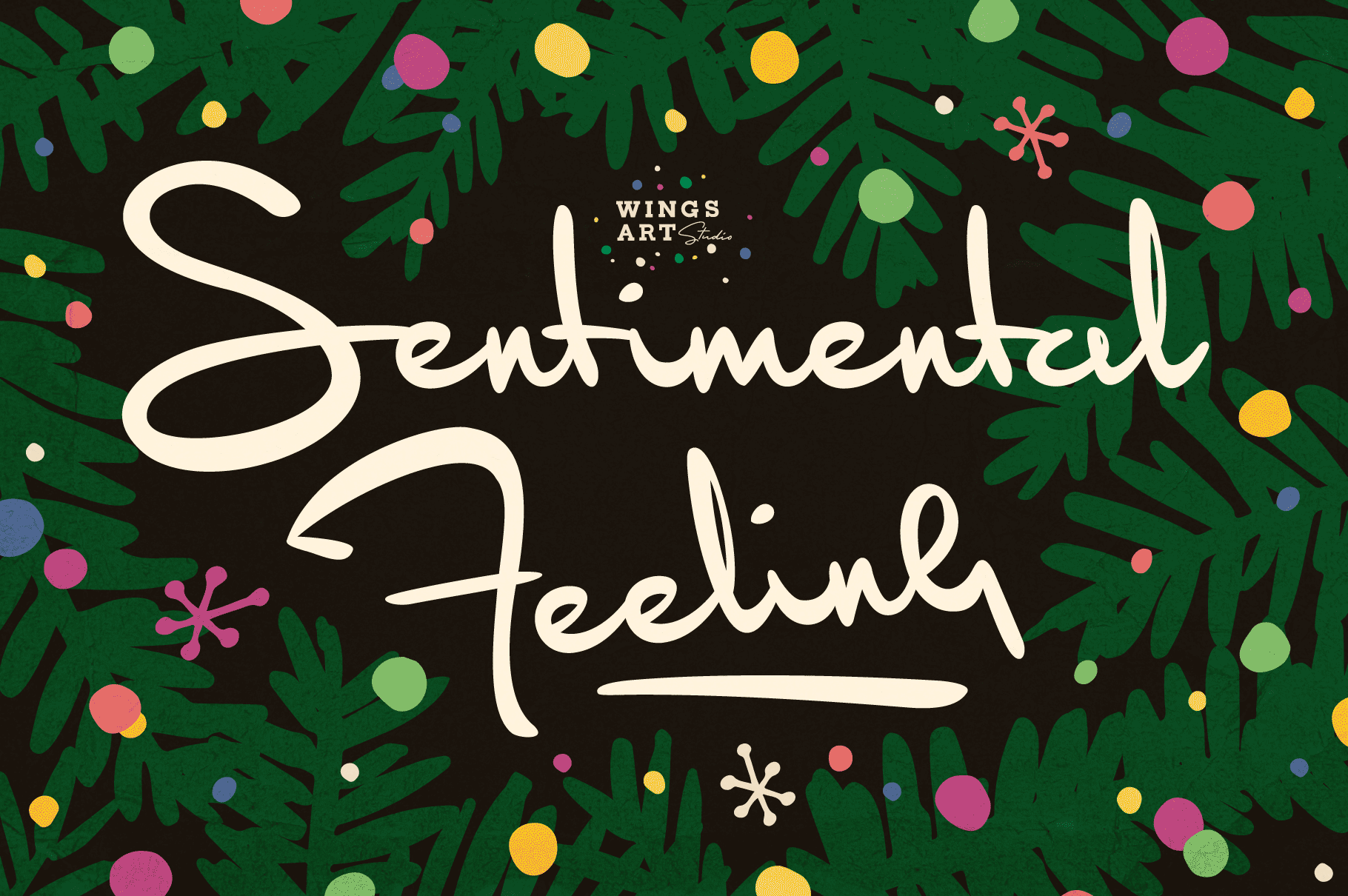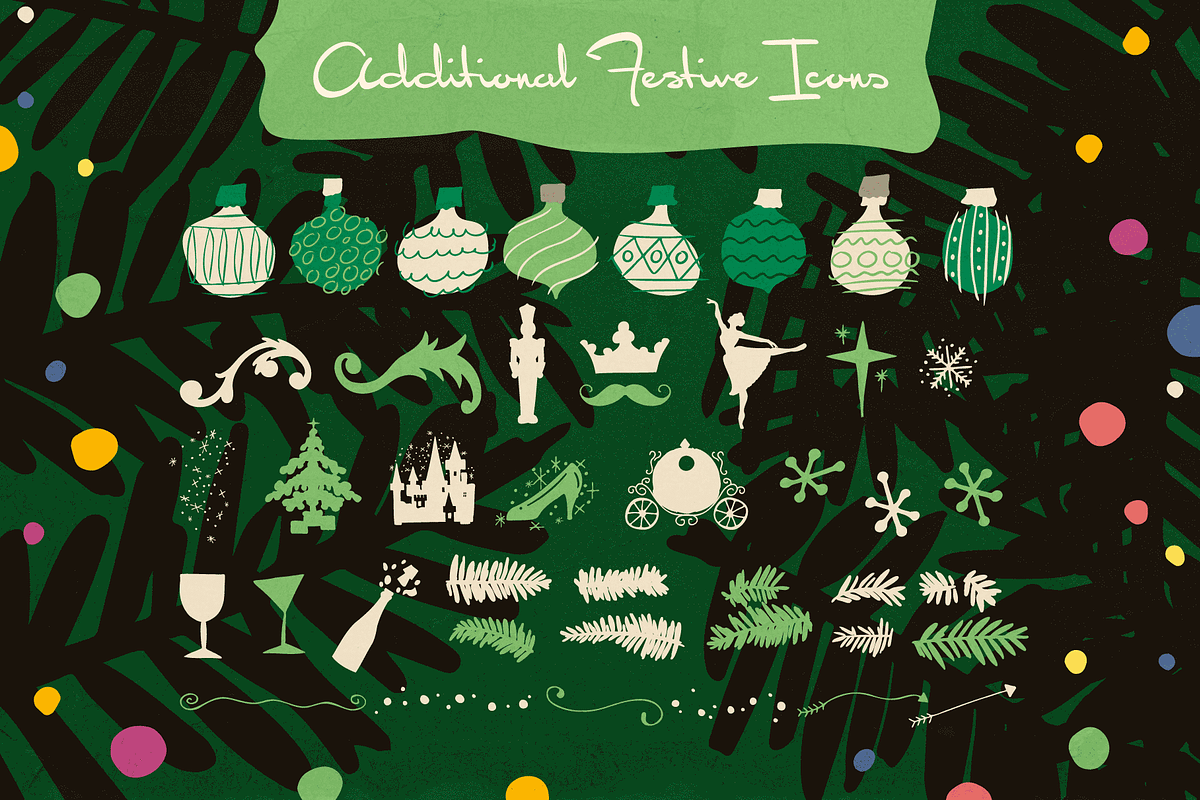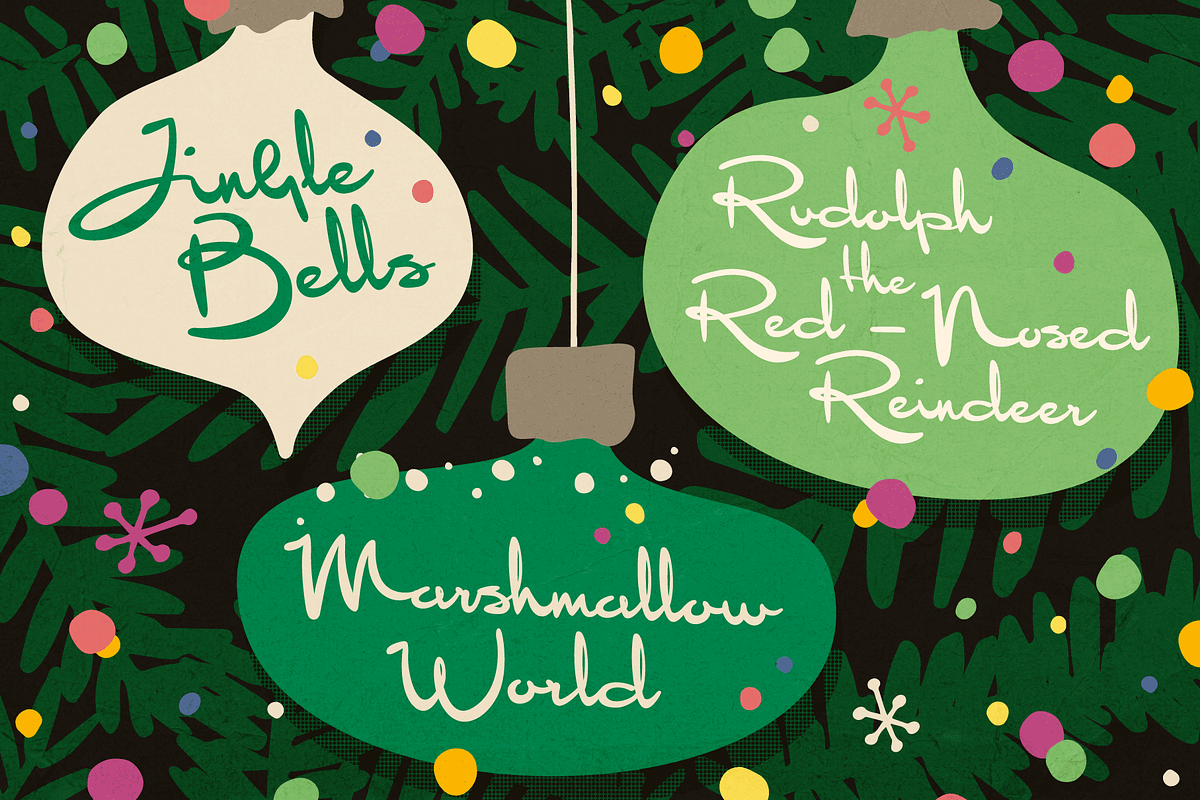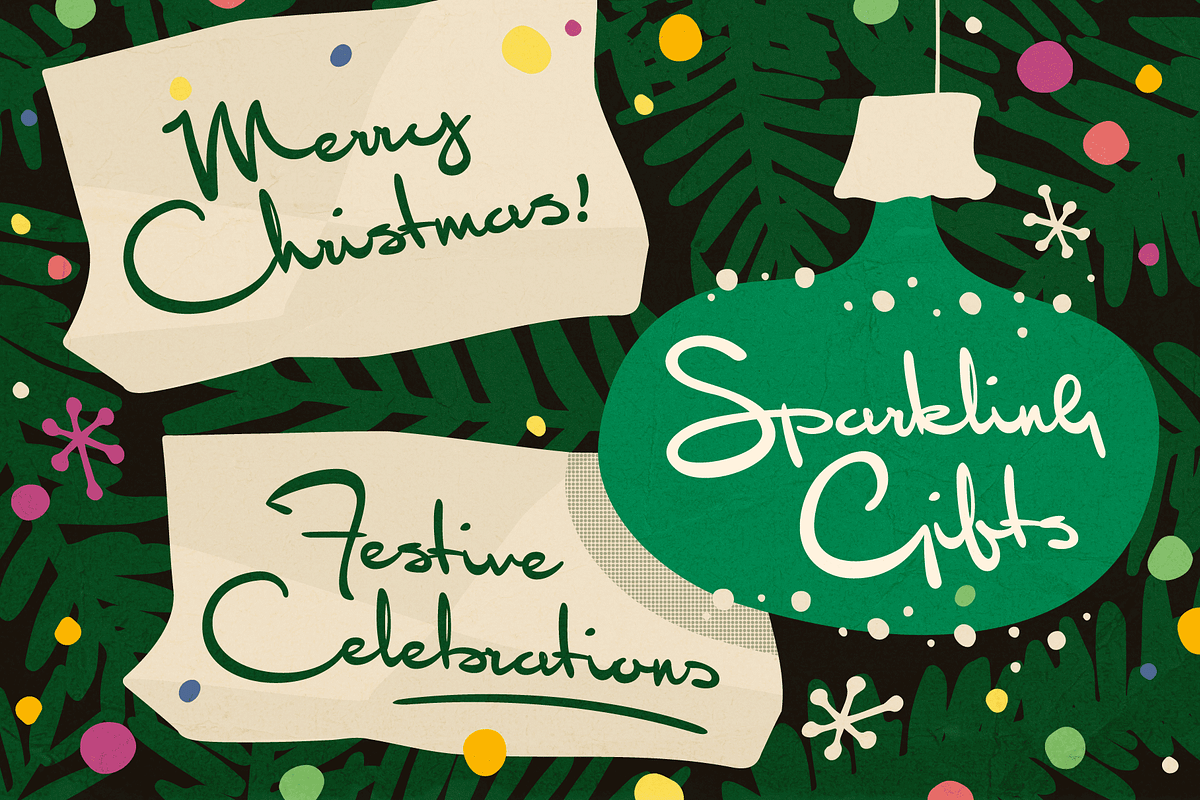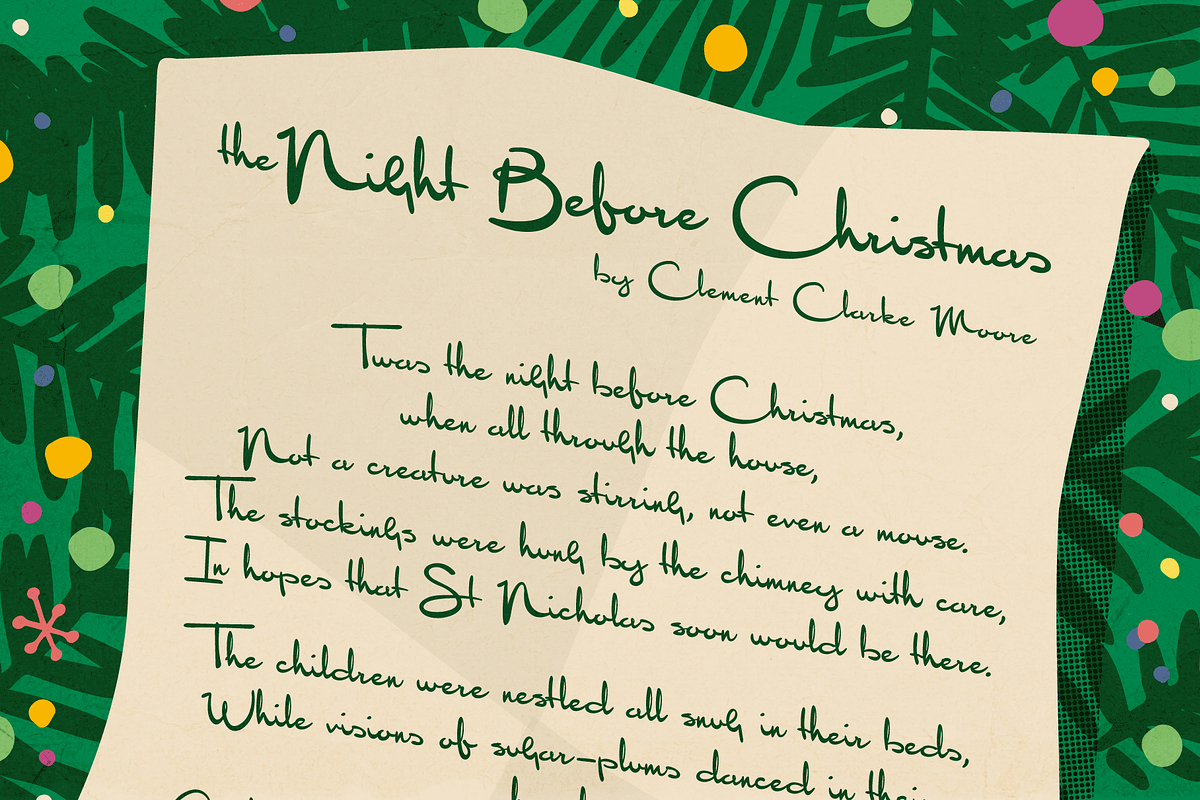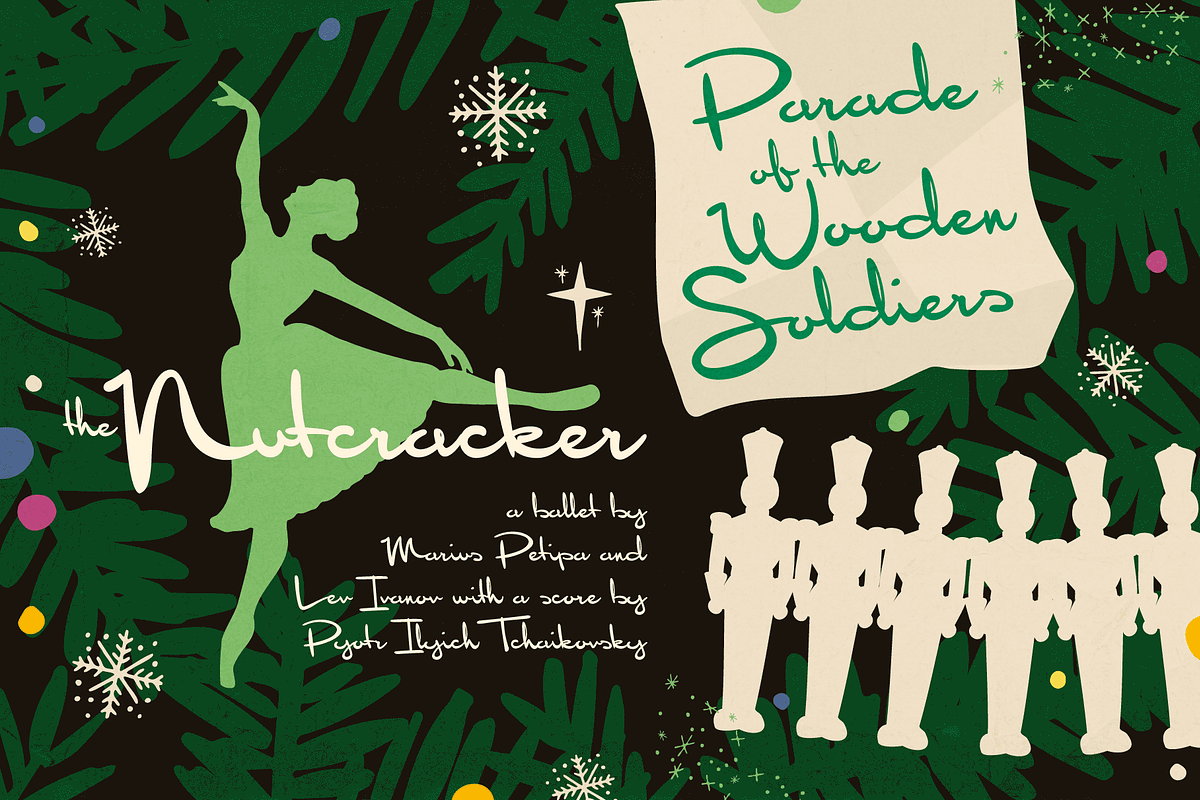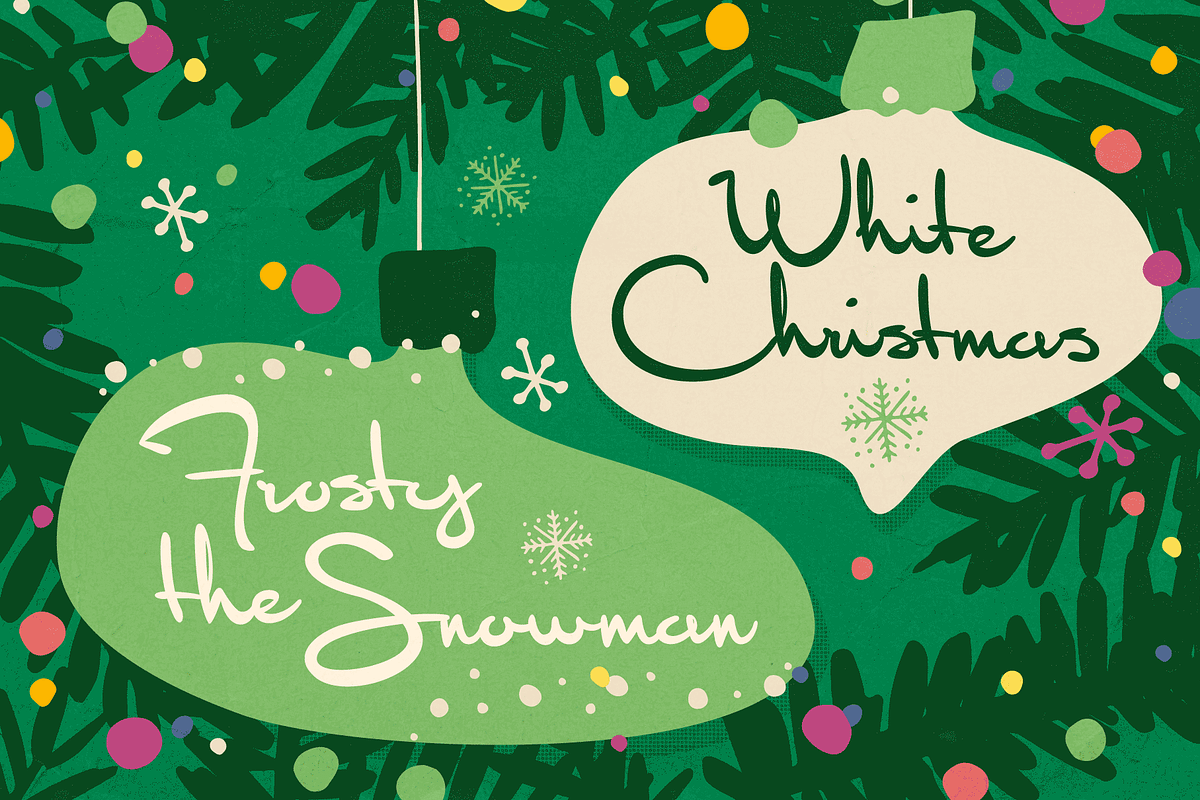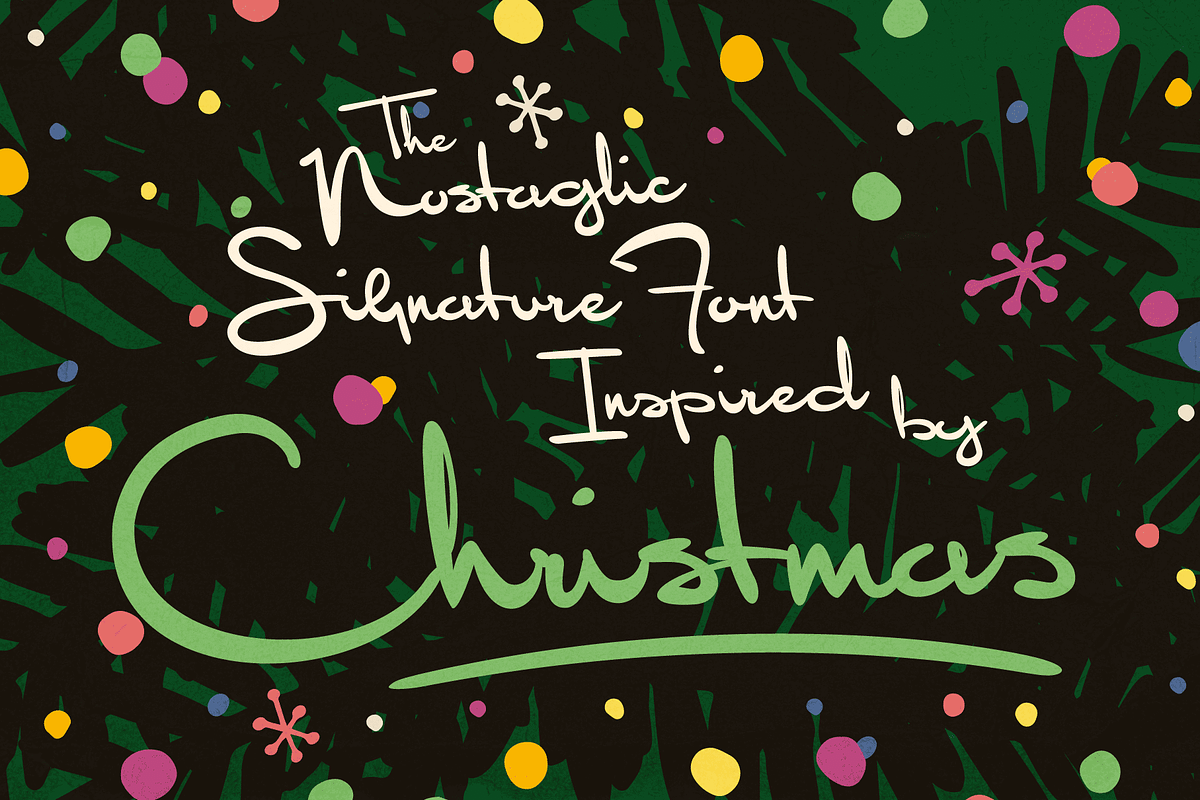
Sentimental Feeling - Christmas Font
A Nostalgic Signature Font for Christmas
Sentimental Feeling is a script font that aims to capture the festive magic of Christmas with a retro design inspired by 1950s magazine editorials, classic movies and real hand-written signatures.
It's a warm design that evokes Christmases of old, with a smooth brush-like flow and subtle human imperfections. It's equally at home singing carols, sharing Xmas Eve stories or serving cocktails at your New Years party.
This happy holiday font comes with a complete set of uppercase and lowercase characters, plus numerals, punctuation, language support, symbols, alternatives, custom ligatures, underlines and a selection of festive clipart (including everything you might need to re-create the examples seen in my visuals).
Add it to your toolbox and create the perfect Christmas designs, such as gifts and stationery products, ads, titles and much more!